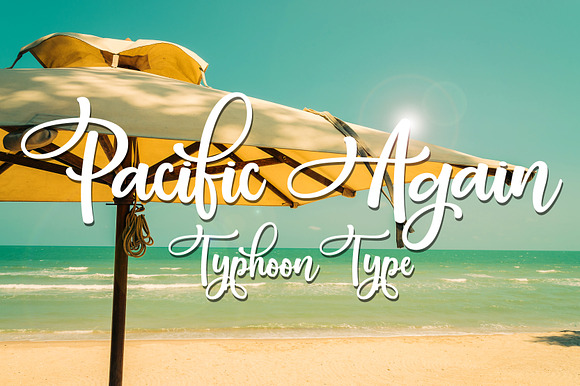
Pacific Again font
Pacific Again This font perfect for logos, name tag, advertising, product packaging, clothing, social media & greeting cards.
Why Pacific Again font is worth a look
Pacific Again font by TyphoonStudio fits naturally into Branding, posters, packaging, typography.